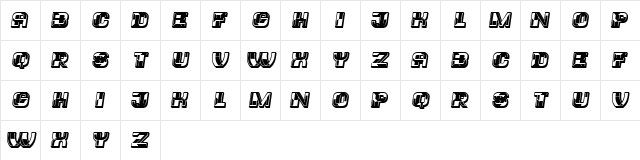
Trader Italic
Design Context for Trader Typeface
Trader is a composed and adaptable typeface that performs quietly and consistently across a wide range of design contexts. The slanted form adds forward momentum and visual energy.
Pro Tip: Use Trader for emphasis, pull quotes, and subheadings where its slanted energy can add rhythm to the layout.